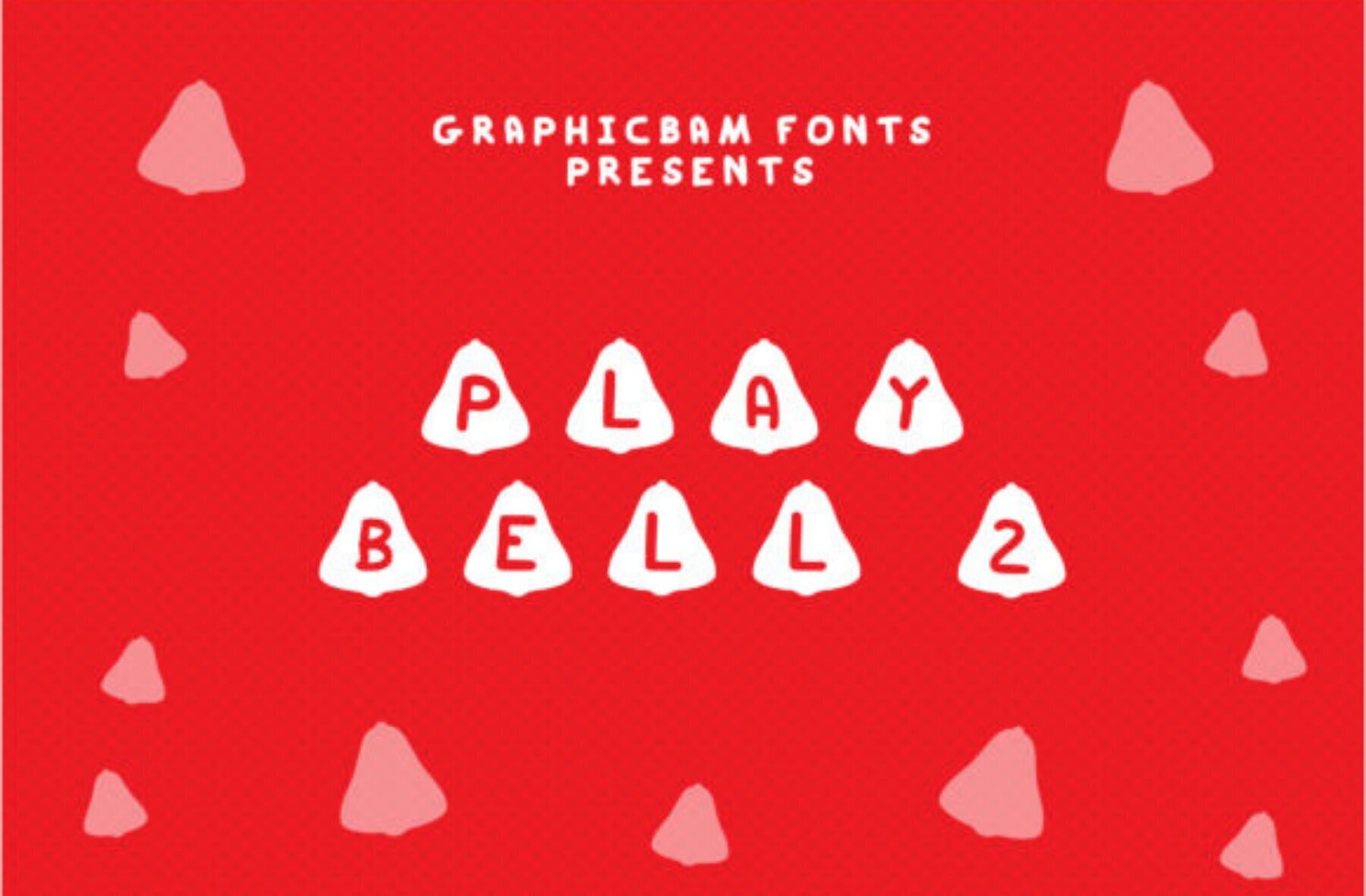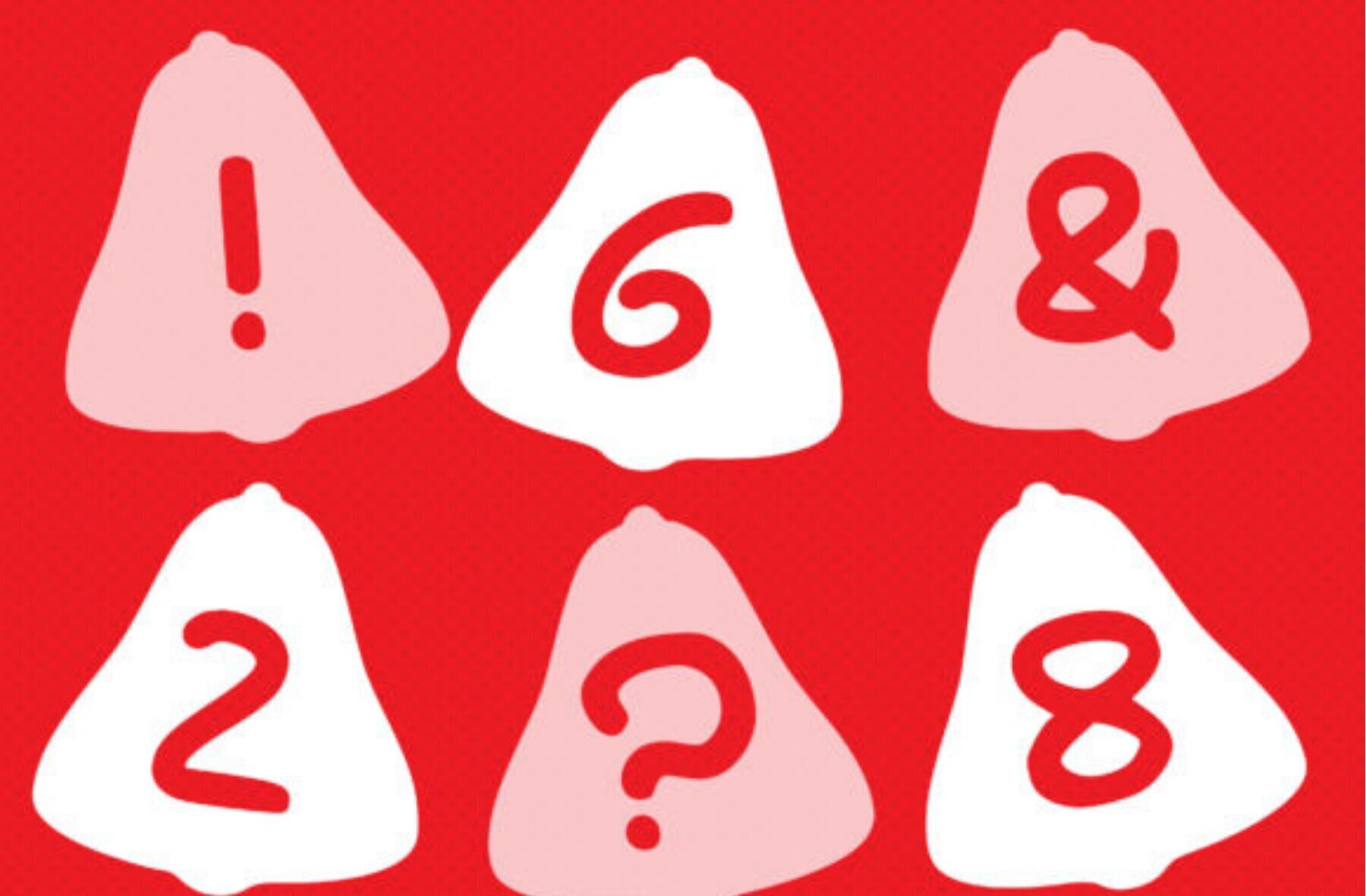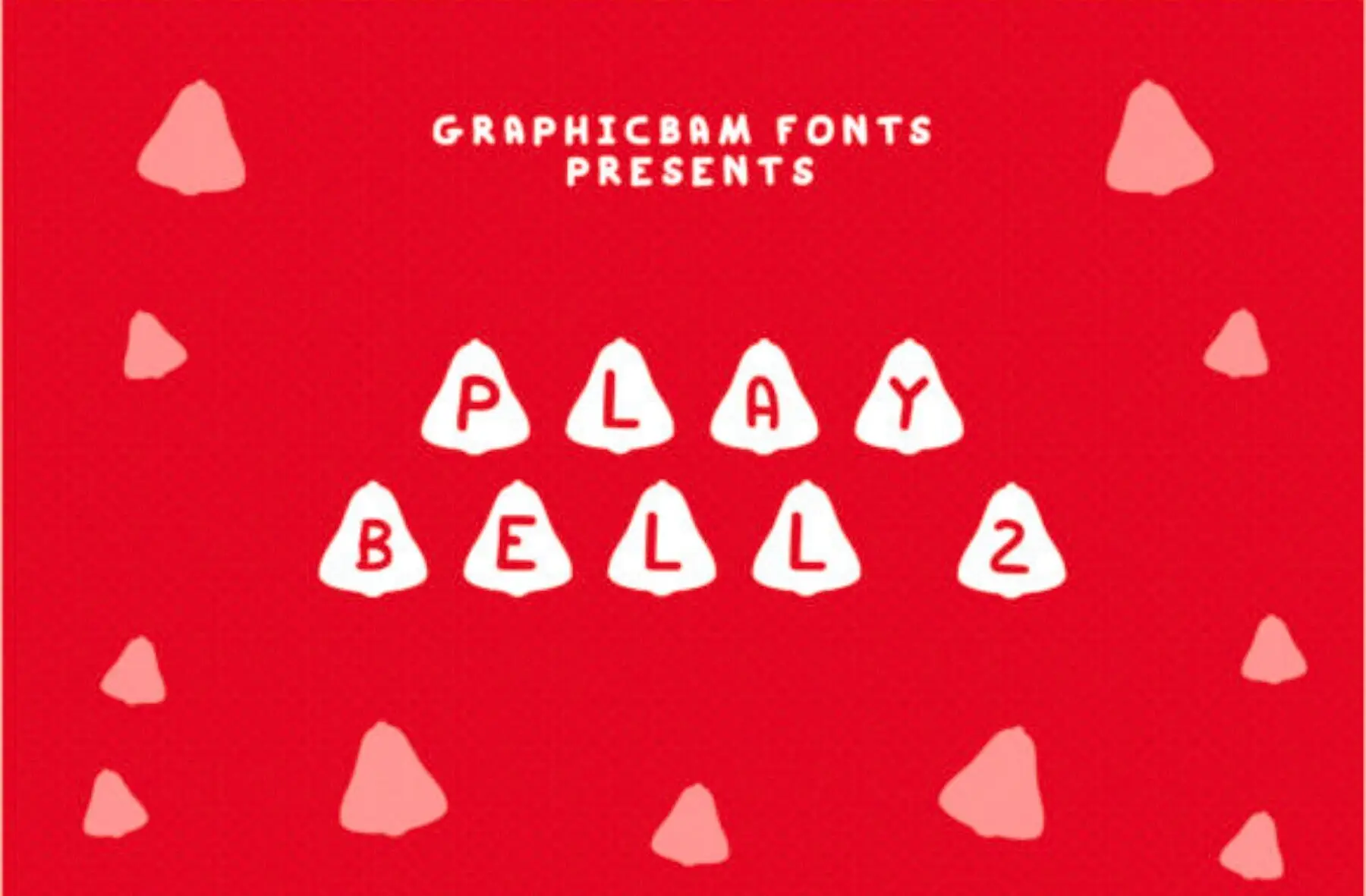
Play Bell 2 Font
Play Bell 2
Embrace a touch of festivity with Play Bell 2, a delightful decorative font that brings a cheerful vibe to any project. Whether you're crafting unforgettable invitations, designing vibrant holiday themes, or creating eye-catching marketing materials, this font adds a fun and lively element that's hard to miss.Play Bell 2: Cheerful Decorative Font